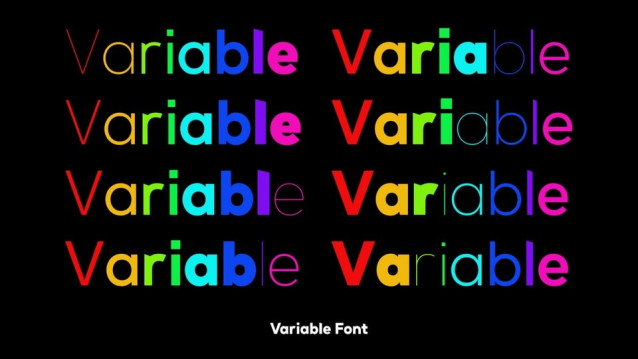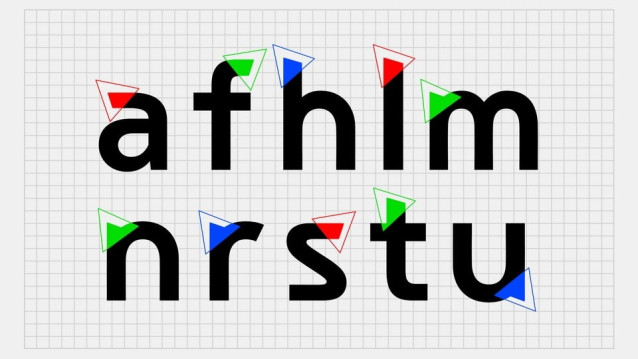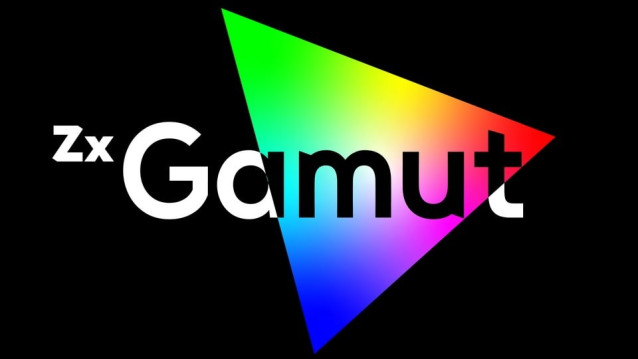
Zx Gamut Font Family
Zx Gamut Font Family is a modern geometric variable sans serif font that seamlessly blends rounded letterforms with sharp angles. This unique combination creates a striking balance between softness and precision, making it a versatile choice for contemporary design.
With multiple weights and styles, this font adapts effortlessly to branding, editorial layouts, user interfaces, and digital experiences. Whether you’re crafting sleek headlines or clean body text, Zx Gamut font delivers a bold yet refined aesthetic with a futuristic edge.